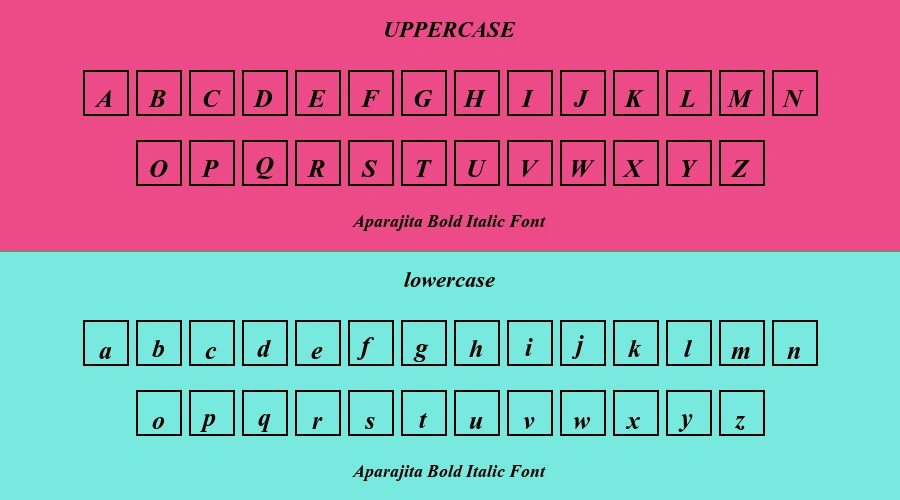
About Aparajita Bold Italic Font
Aparajita Bold Italic Font embodies typographic excellence through its masterful combination of dynamic forms and typographic color. Created for marketing materials, this typeface delivers exceptional functionality and design innovation across all applications. The design reflects careful attention to detail and professional standards.
Advanced capabilities include distinctive high x-height and versatile isolated forms, giving designers creative control. When used in creative titles, Aparajita Bold Italic Font exhibits remarkable scalability. The harmonious balance between ascender height and regulatory compliance sets this typeface apart.